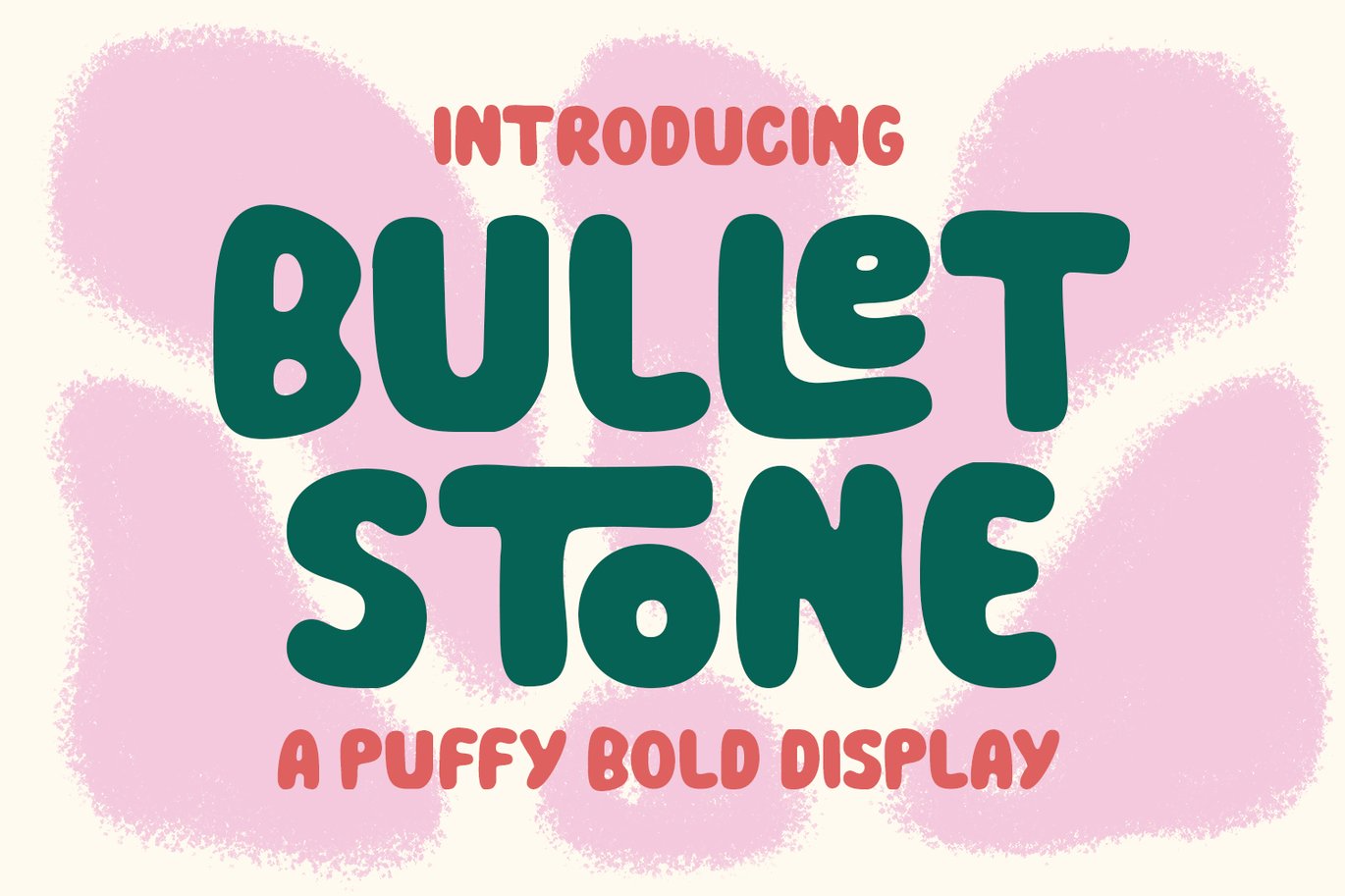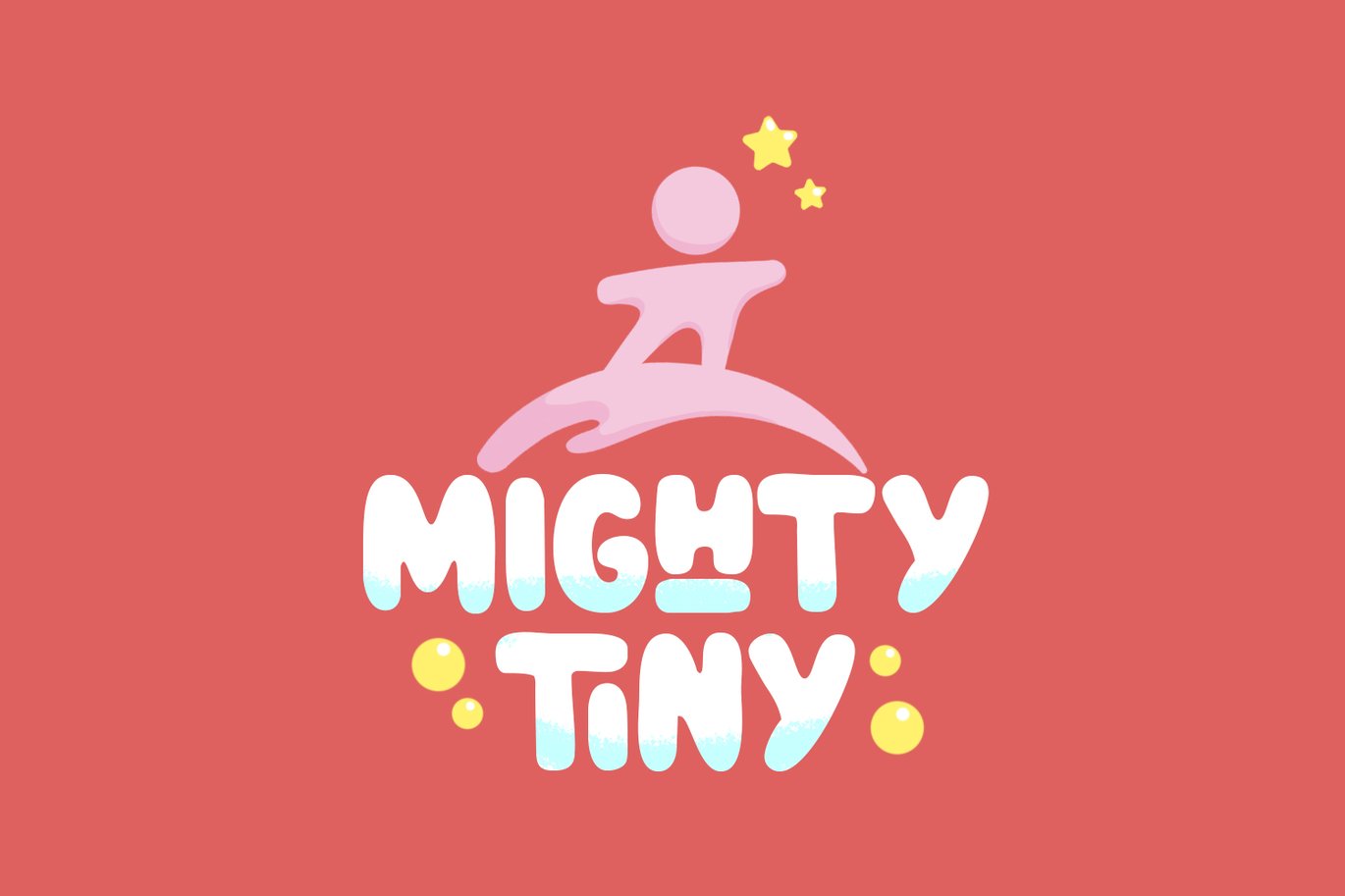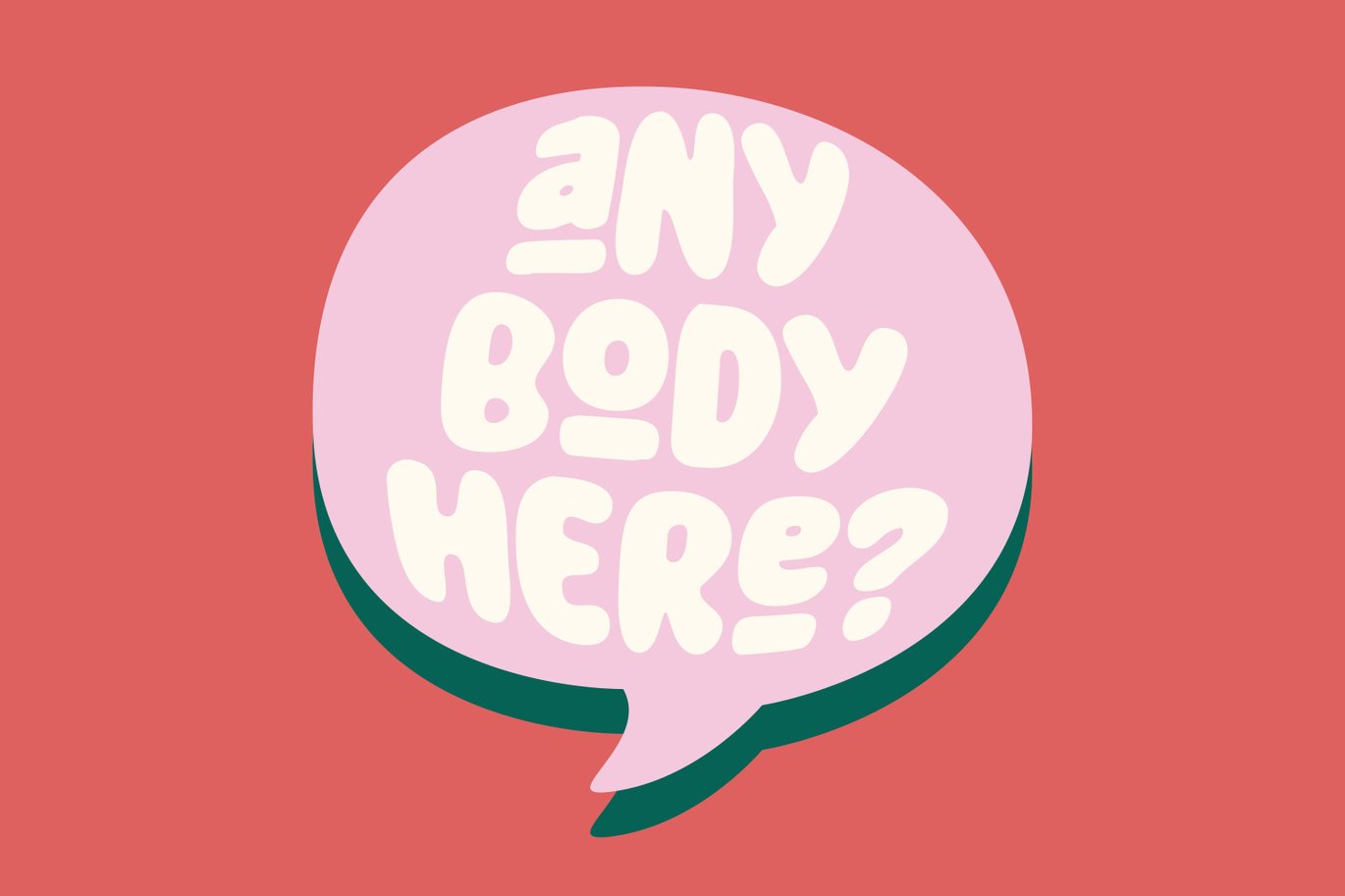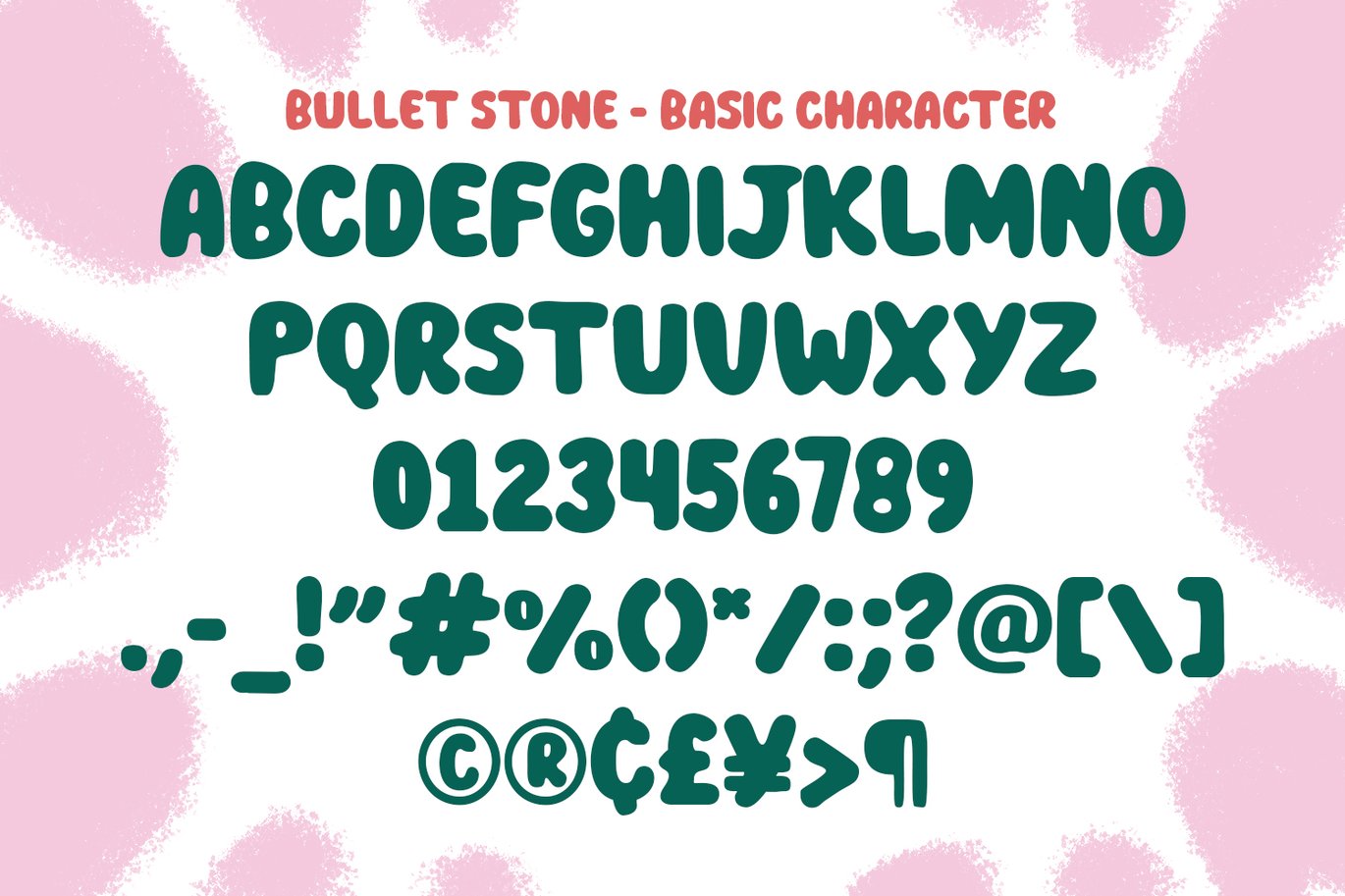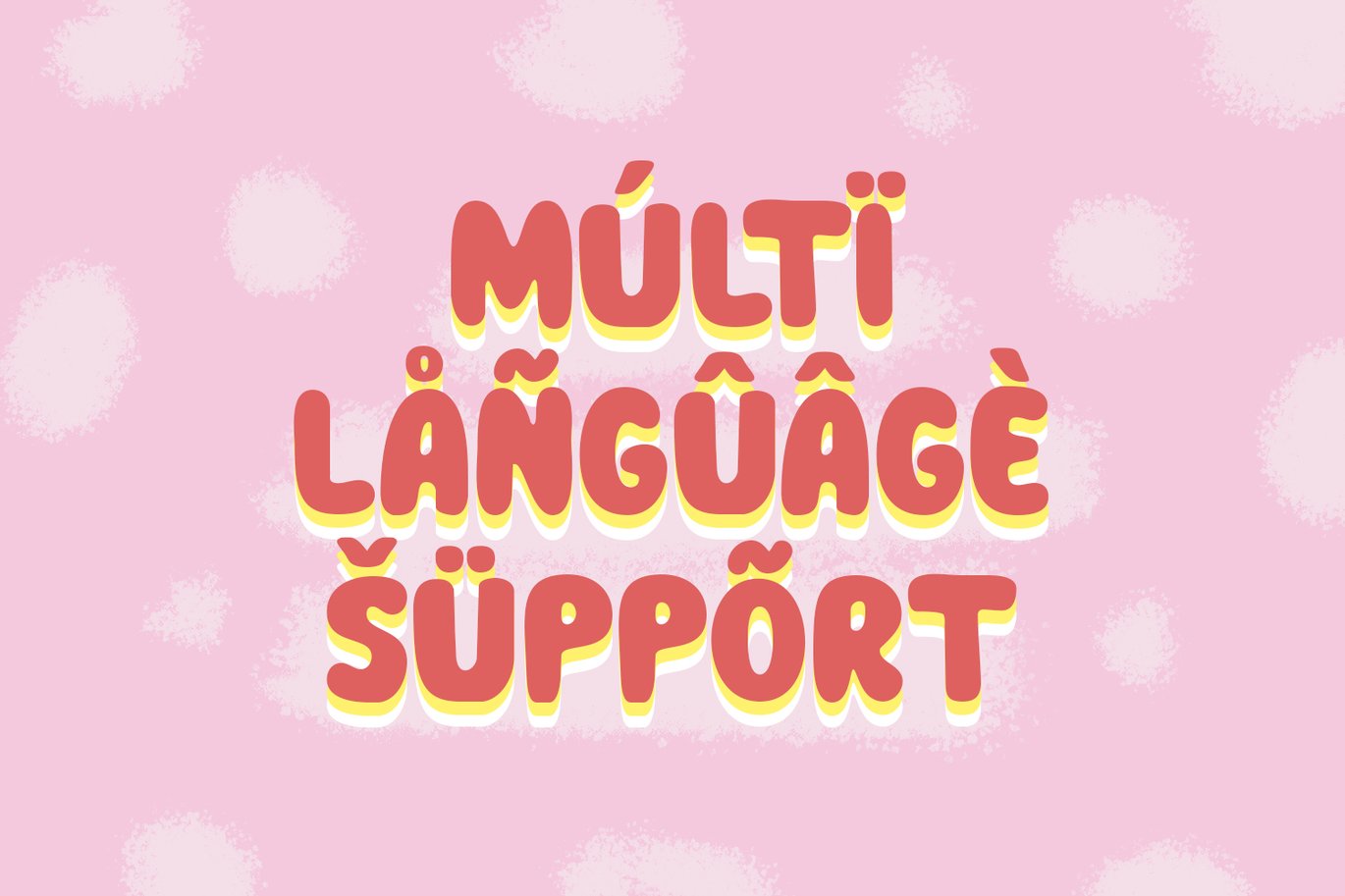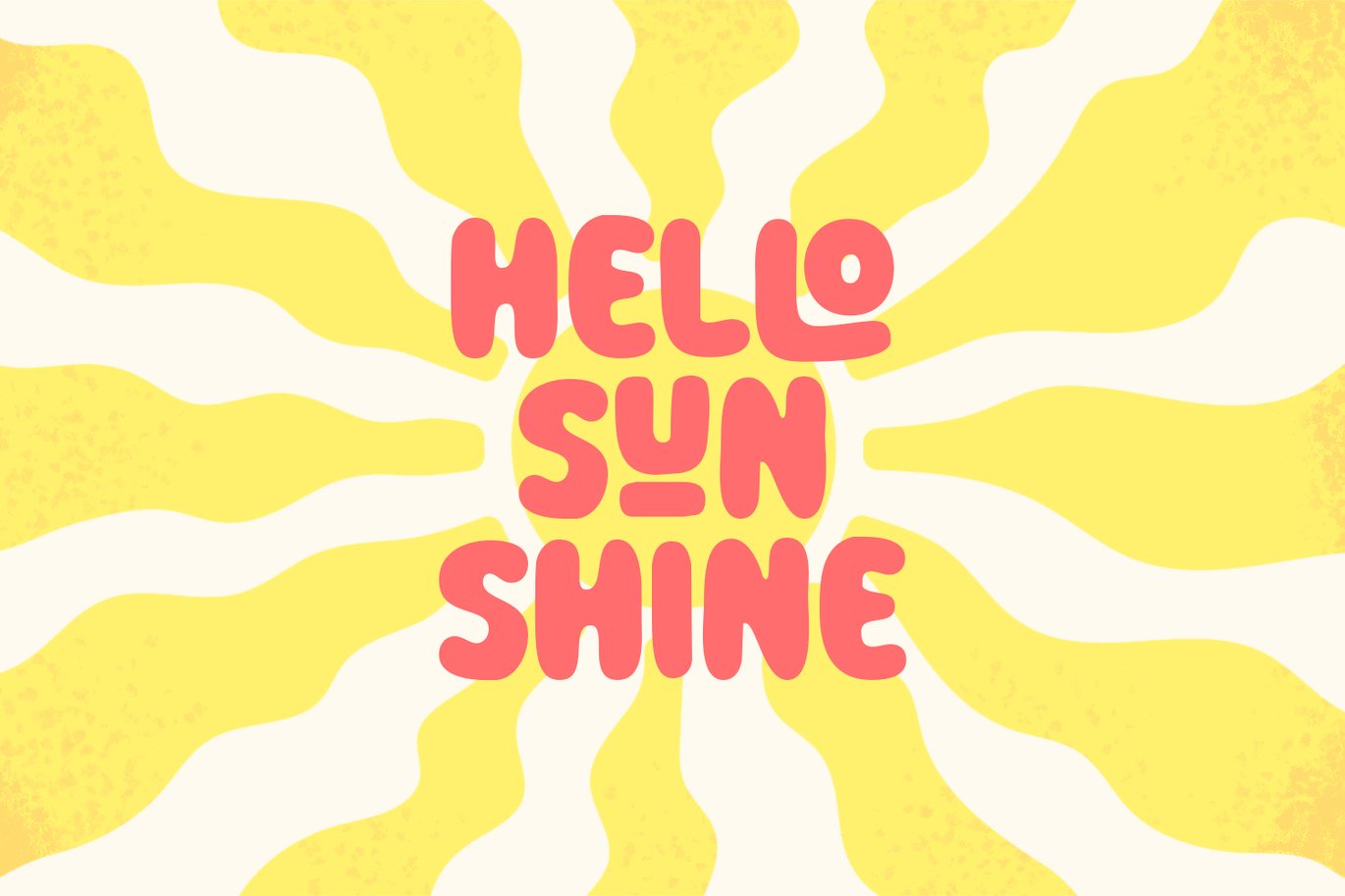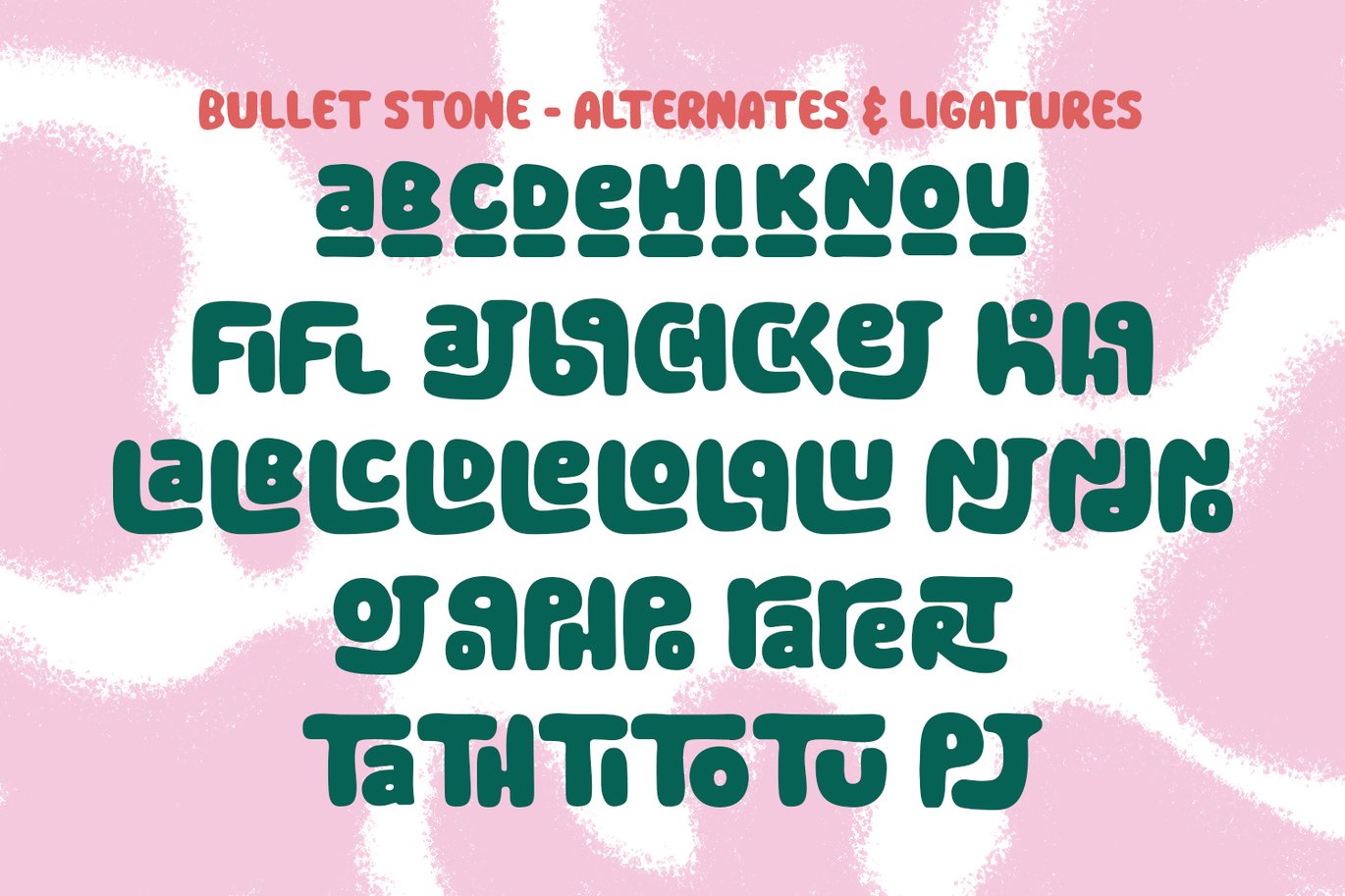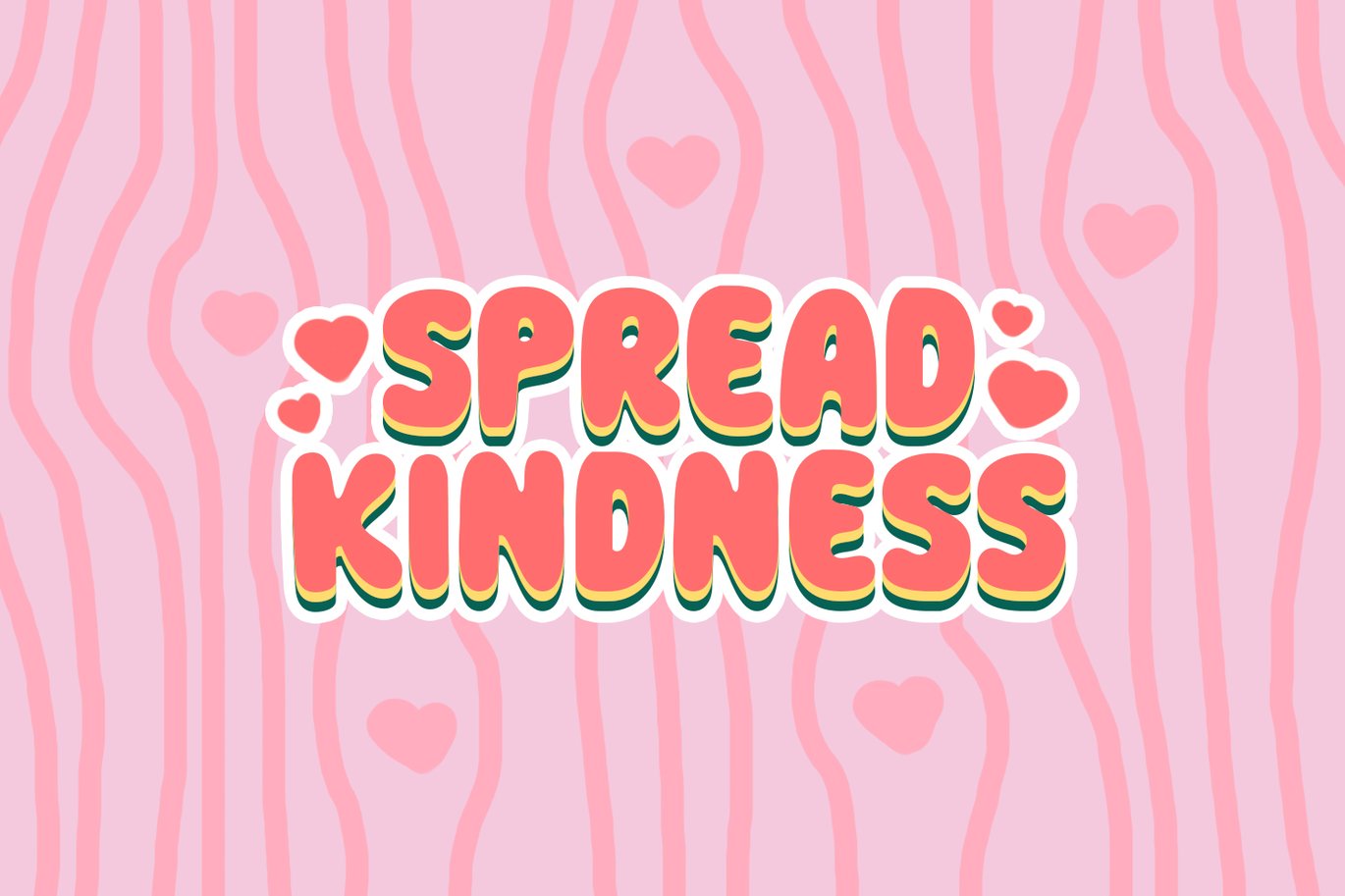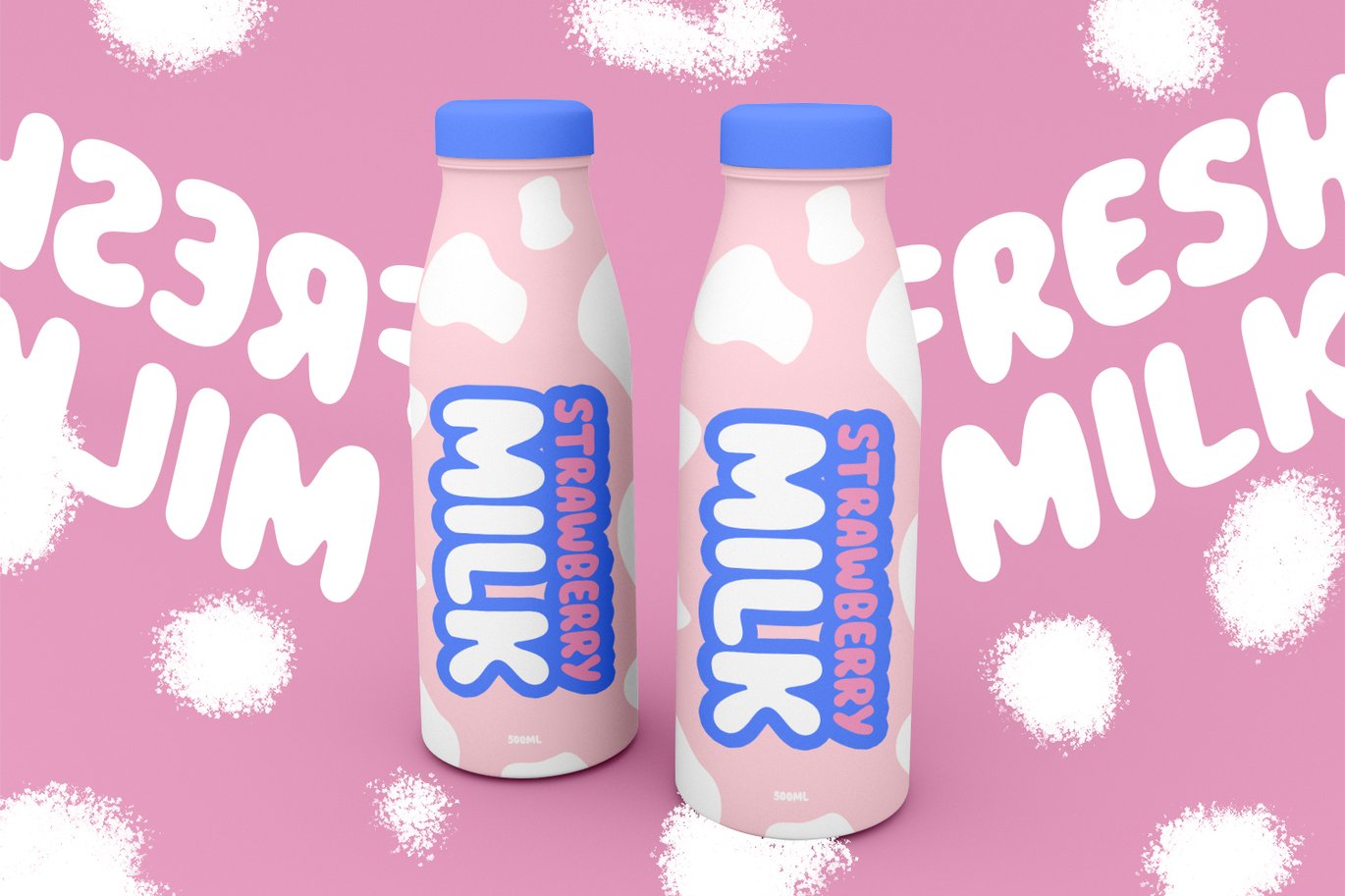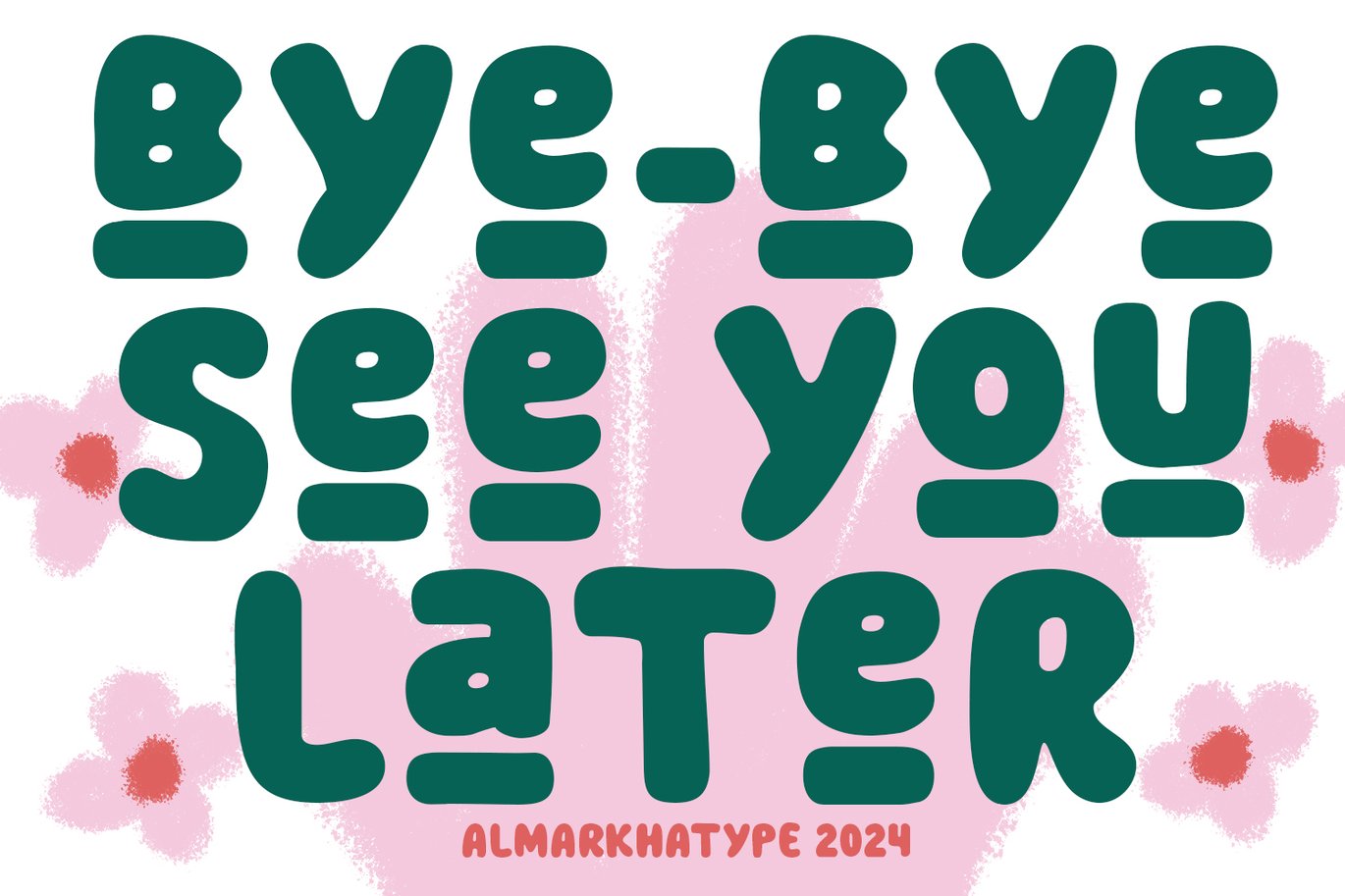
Bullet Stone – Bubble Display Font
Introducing “Bullet Stone,” a bold font that packs a punch! Ideal for headlines, posters, logos, and more, its rugged yet stylish design commands attention. Make a statement with Bullet Stone Display!
- Ligatures glyphs
- Alternate glyphs
- International Accent